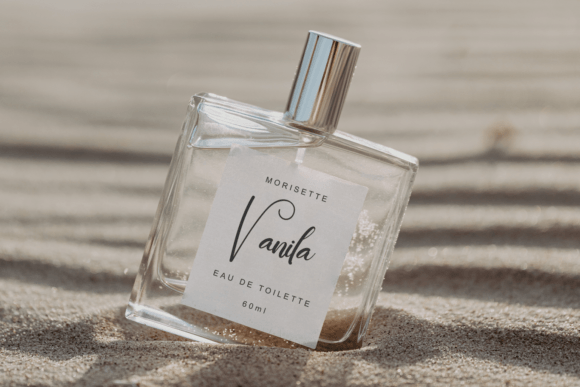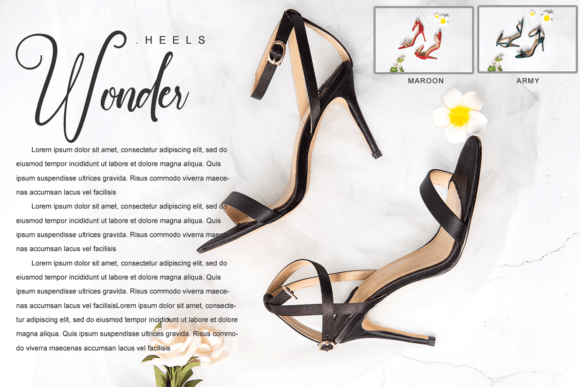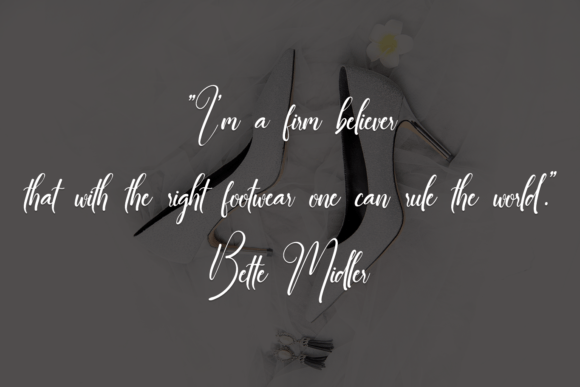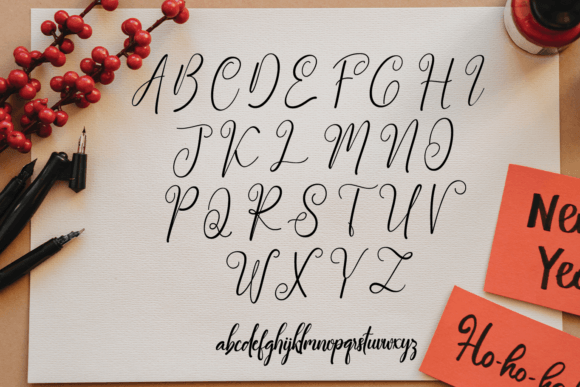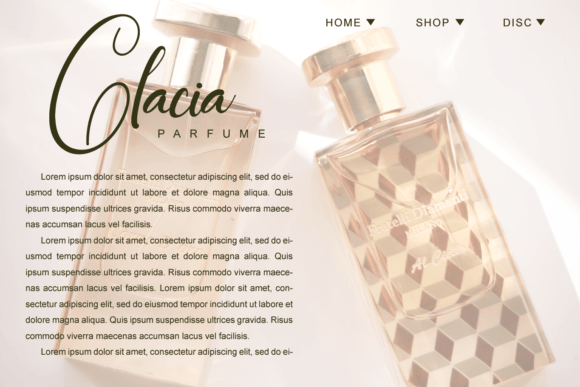
Snowman Font
About Snowman Font
Snowman Font is an elegant handwritten script that blends timeless calligraphic charm with a modern, playful edge. It’s thoughtfully crafted to feel warm, inviting, and professional—making it an excellent choice for a wide range of creative applications. This font adds a touch of elegance while still feeling friendly and fresh, perfect for winter-inspired designs and beyond.
Ideal for Holiday and Creative Projects
Designed for versatility, Snowman Font works beautifully across different types of creative work. Whether you’re designing for personal or commercial use, this font delivers impact without losing its warmth. Use it for:
• Holiday greeting cards and invitations
• Winter event posters and flyers
• Branding and logo design
• Social media content
• Packaging and product labels
• Seasonal merchandise and apparel
Its smooth, flowing lines bring a handcrafted feel that elevates your visual storytelling.
Why Choose Snowman Font?
In a crowded world of script fonts, Snowman stands out. Here’s why designers love it:
• Timeless appeal: It draws from traditional handwriting styles while keeping a modern look.
• Warm personality: Adds a human touch to digital and print designs.
• Easy readability: Carefully spaced letters make it easy to read at different sizes.
• Well-balanced style: Combines elegance and simplicity, making it adaptable to many themes.
With its natural curves and fluid strokes, this typeface is perfect for adding a personal feel to any project—especially during the cozy winter season.